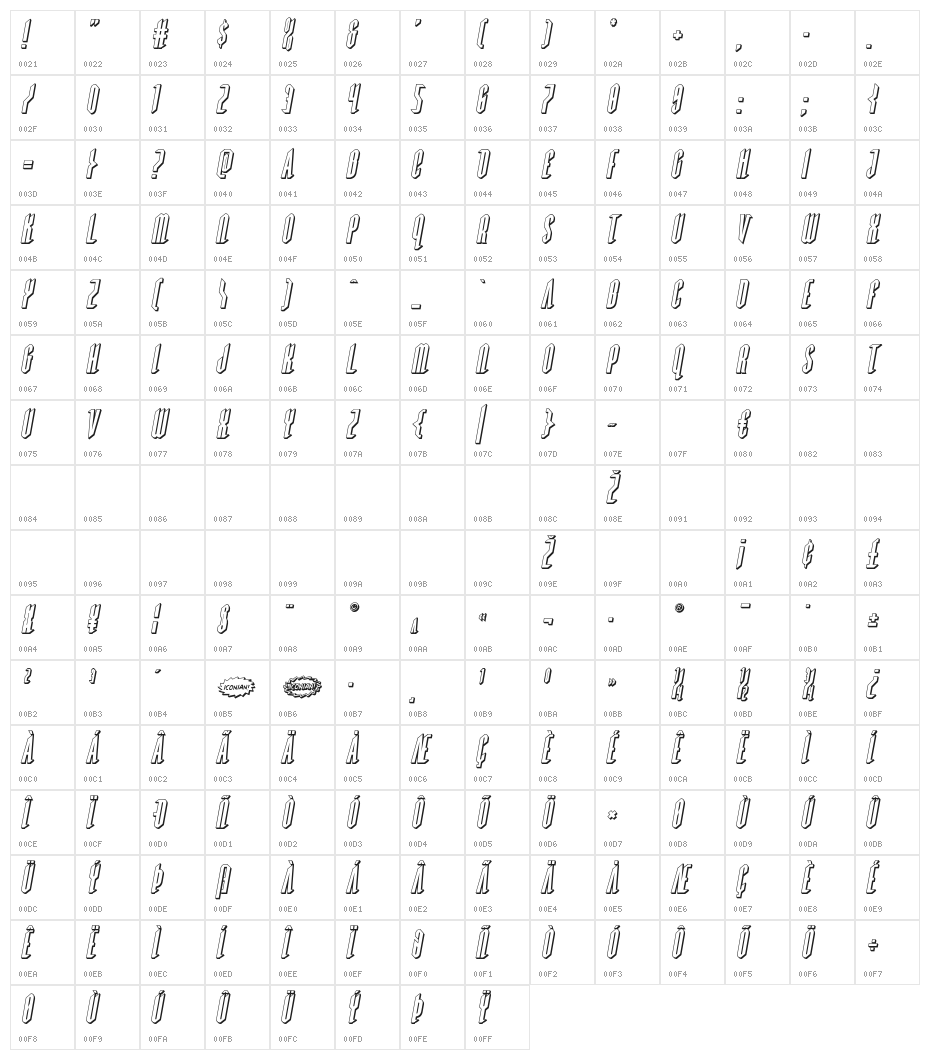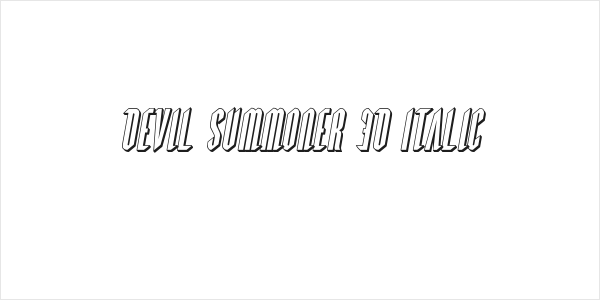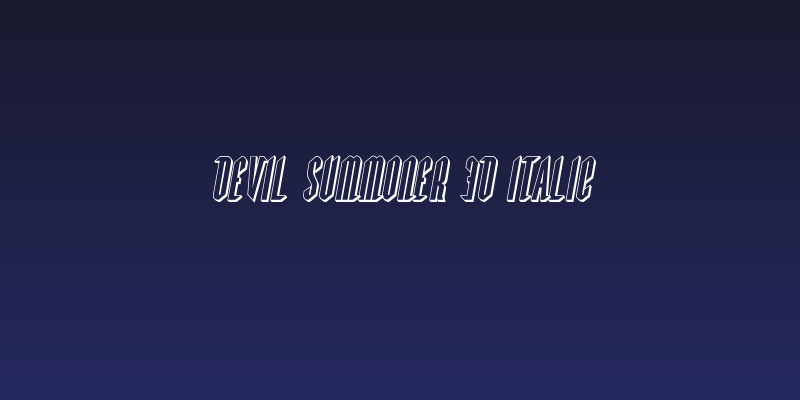
Devil Summoner 3D Italic Font
Devil Summoner 3D Italic Description
This font features a bold, italicized style with a distinct 3D effect that gives it a dynamic and eye-catching appearance. The characters are sharply angled, creating a sense of movement and energy. The uppercase and lowercase letters maintain a consistent slant, enhancing the italicized look. The numbers and special characters follow the same design principles, ensuring uniformity across all glyphs. The font's thick outlines and shadowing contribute to its bold presence, making it suitable for impactful designs. Its unique style is perfect for projects that require a modern and edgy aesthetic.
| Proposed Projects | Ideal for video game titles, movie posters, branding for edgy products, and any design needing a modern, bold look. |